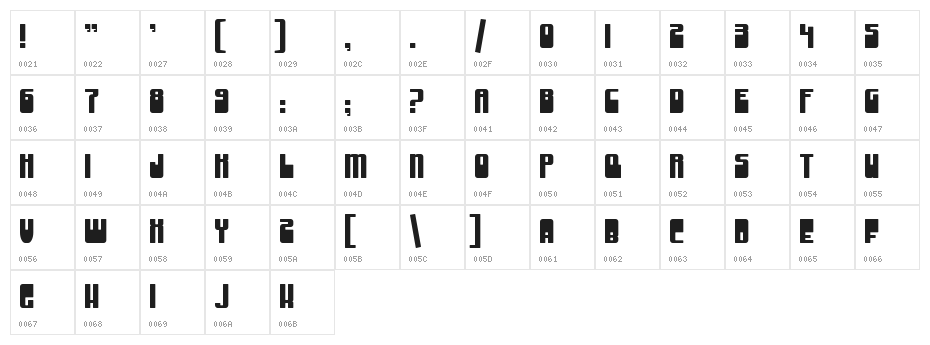
Groove Machine Upright Font
Groove Machine Upright Description
This font features bold, geometric letterforms with a distinctly modern and industrial feel. The characters are constructed with thick, uniform strokes, creating a strong visual impact. The uppercase letters are particularly striking, with a blocky, almost mechanical appearance. The numbers and special characters maintain this bold style, ensuring consistency across all glyphs. The overall design is clean and straightforward, making it suitable for attention-grabbing headlines or branding that requires a strong, assertive presence.